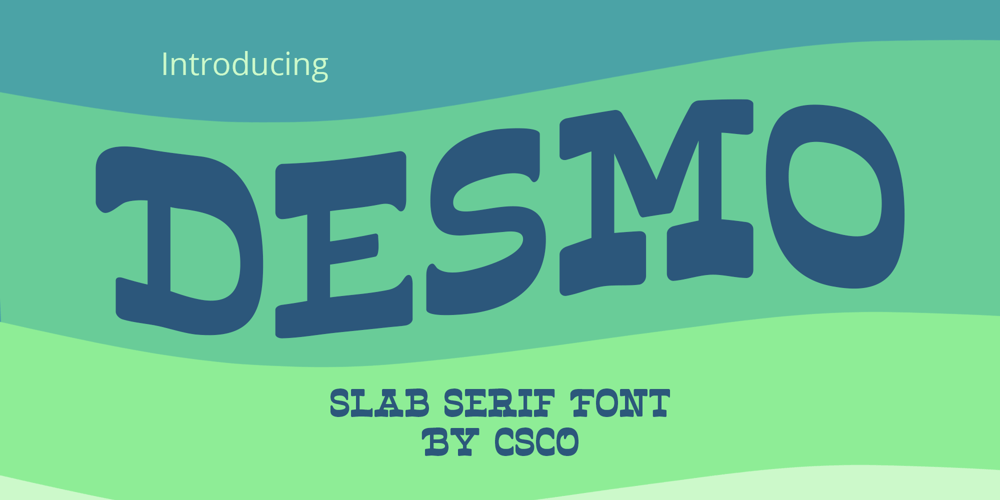
Desmo Font Family was designed by Trio Nazzar Saputra, Wahyu Hadi Yuana and published by Craft Supply Co. Desmo contains 1 styles and family package options. Introducing Desmo Reversed Contrast Slab Serif FontUnique DesignMeet Desmo Reversed Contrast Slab Serif Font. Its reversed contrast sets it apart. Thick horizontal lines and thin verticals create a striking look. This design choice grabs attention, perfect for impactful displaysVersatile Display FontDesmo shines in display settings. Whether for headlines, posters, or advertising, it stands out. Its bold features ensure readability from a distance. Moreover, its unique style makes every design engaging.Engaging TypographyDesmo’s typography is designed to captivate. Its slab serifs add a touch of elegance. The font’s balanced spacing ensures clarity in every word. Therefore, it’s ideal for brands aiming to make a statement.Accessibility and Ease of UseThis font is accessible to a wide range of users. Its simplicity avoids complex vocabulary. Easy to install and use, Desmo suits various design projects. Additionally, its compatibility with multiple software enhances its versatility.